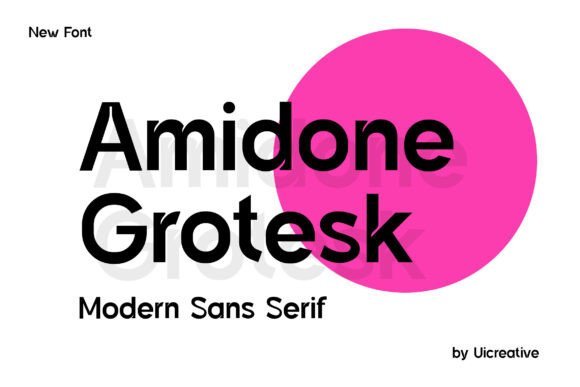
Unleash the Sophistication: The Allure of the Amidone Grotesk Font
As designers, we’ve all been there – staring at a blank canvas, searching for the perfect font to bring our vision to life. And then, it hits us – the perfect combination of elegance and style that sets our project apart. For many, that moment of creative epiphany came when they discovered the Amidone Grotesk Font.
This modern display font is more than just a pretty face; it’s a versatile tool that can elevate any project from signature to stationery, logo to website headers. With its perfect blend of masculine and feminine qualities, the Amidone Grotesk Font is the ideal choice for fashion-related branding or editorial design.
Amidone Grotesk Font Key Features
- Font Family: Amidone Grotesk
- Character Set: Latin, Cyrillic, Greek, and other languages with 1000+ glyphs
- Unique Characteristics: Geometric sans-serif design, high x-height, and precise letterforms for clear readability
Amidone Grotesk Font Review
As a designer, I’ve had the chance to work with the Amidone Grotesk font, and here’s my honest review.
- Unique yet familiar feel: Amidone Grotesk has a distinct character that sets it apart from other sans-serif fonts, yet still feels approachable and easy to read.
- Wide language support: This font is designed to work well in a variety of languages, making it a great choice for global brands and publications.
- High-quality digital rendering: The digital version of Amidone Grotesk is crisp and clean, making it perfect for digital design projects.
- Not ideal for fine typography: While Amidone Grotesk is great for body text and headlines, it may not be the best choice for intricate, fine typography projects.
- Limited script and decorative options: This font is primarily designed for body text and headings, so it may not offer the same level of script and decorative options as other fonts.
Overall, I think Amidone Grotesk is a solid choice for designers who need a clean, modern sans-serif font that’s easy to read and works well in a variety of languages. While it may not be ideal for every project, it’s definitely worth considering for your next design endeavor.
Tips for Getting the Most Out of Amidone Grotesk
Amidone Grotesk is a versatile font that can be used for a variety of purposes. Here are a few tips for getting the most out of it:
Use Amidone Grotesk for headlines and titles to add a touch of modernity to your design.
Alternatives to Amidone Grotesk Font
The Inter Font is a sans-serif typeface designed by Rasmus Andersson. It is known for its clean lines, simple shapes, and high x-height, making it suitable for digital interfaces and body text. Use Inter when you need a modern, versatile font that works well in a variety of contexts.
Inter compares to Amidone Grotesk in its clean and minimalist design, but Inter has a more geometric feel and a wider range of weights and styles. Inter is also more optimized for digital use, making it a great choice for websites and mobile apps.
The Montserrat Font is a sans-serif typeface designed by Julieta Ulanovsky. It is inspired by the urban typography of Buenos Aires and features a strong, geometric feel. Use Montserrat when you need a font that conveys a sense of modernity and urbanity.
Montserrat compares to Amidone Grotesk in its geometric feel and versatility, but Montserrat has a more dramatic and condensed design. Montserrat is also more suitable for display text and headings, making it a great choice for titles and logos.
The Open Sans Font is a sans-serif typeface designed by Steve Matteson. It is known for its friendly and approachable feel, making it suitable for body text and digital interfaces. Use Open Sans when you need a font that is easy to read and works well in a variety of contexts.